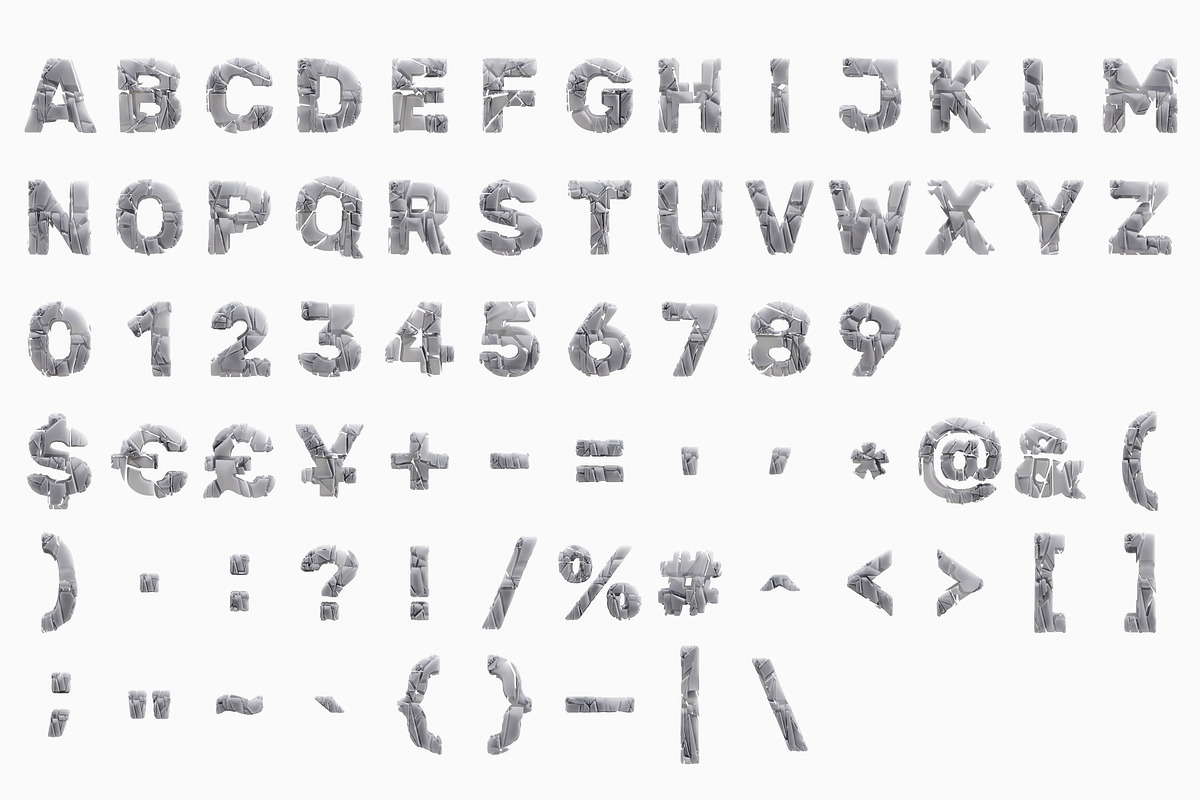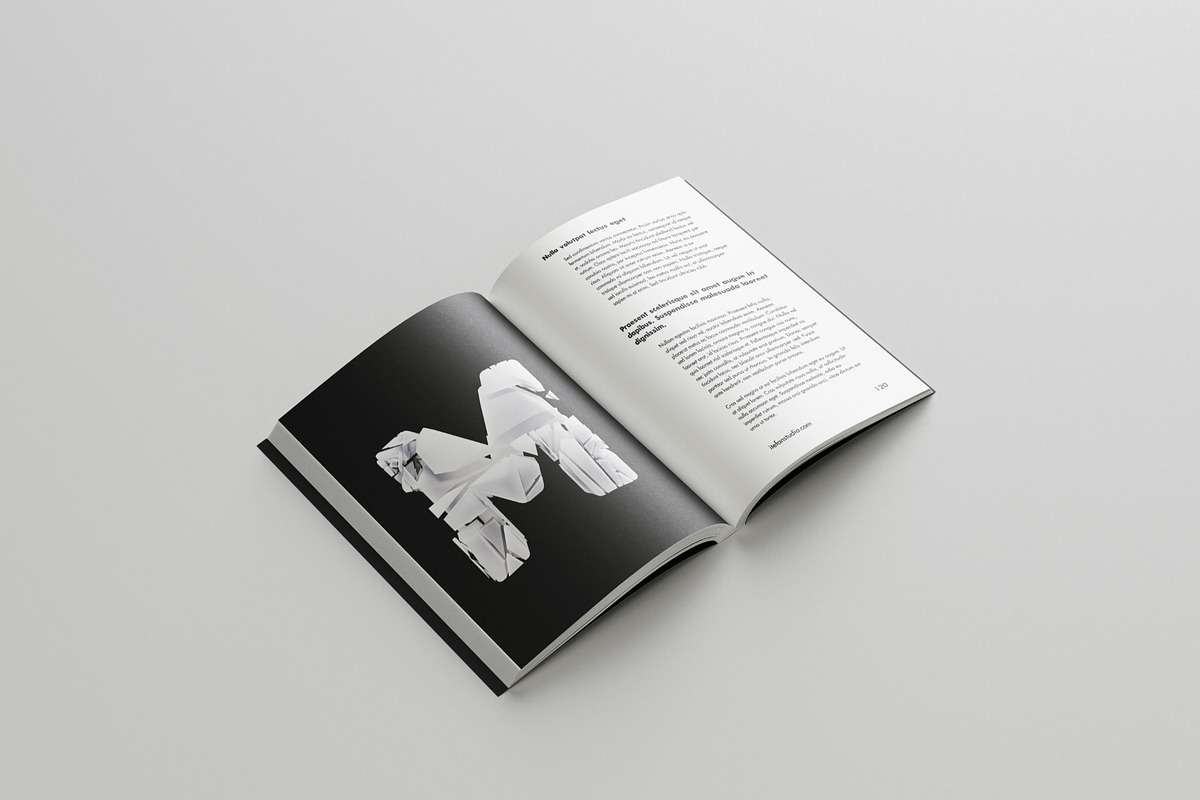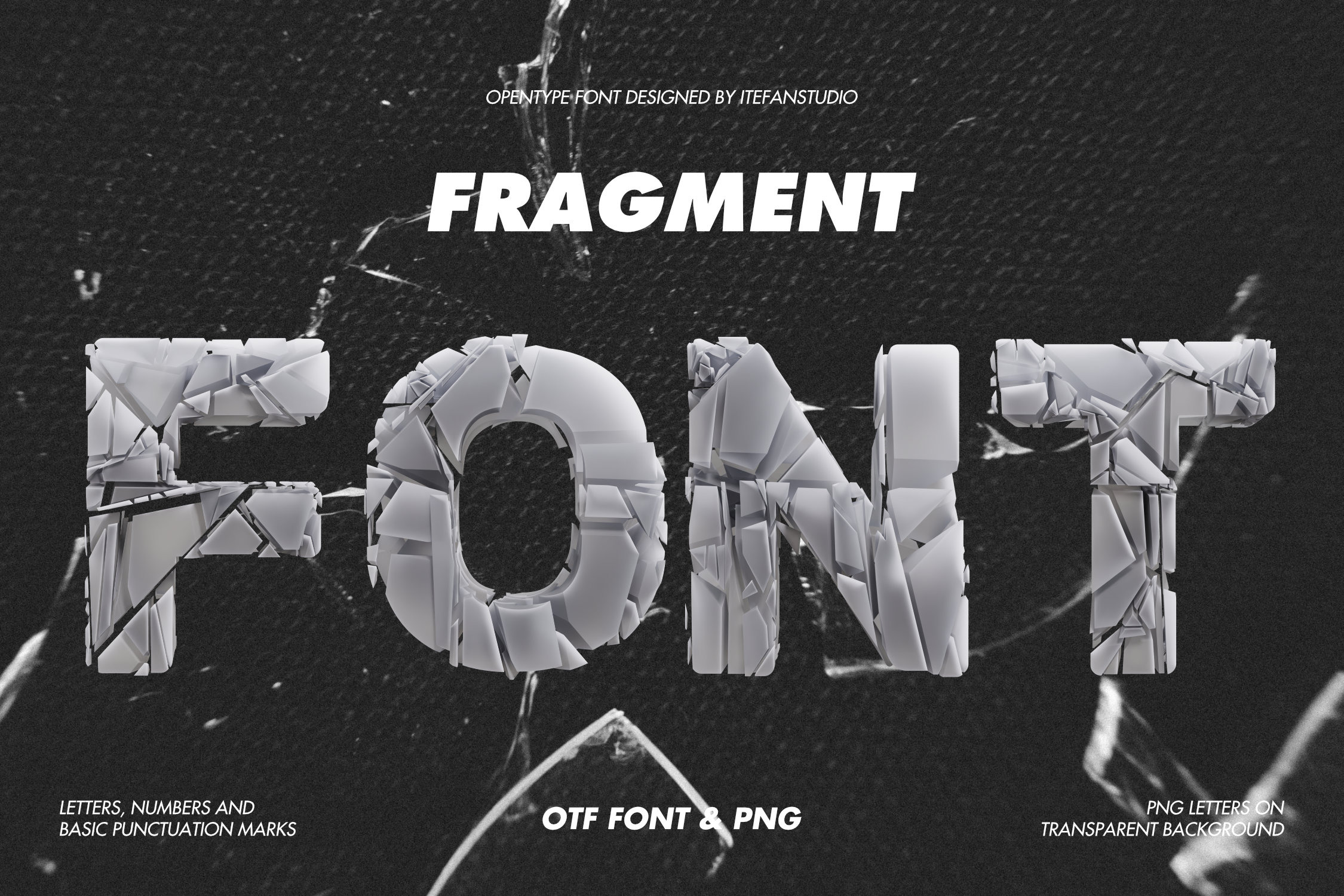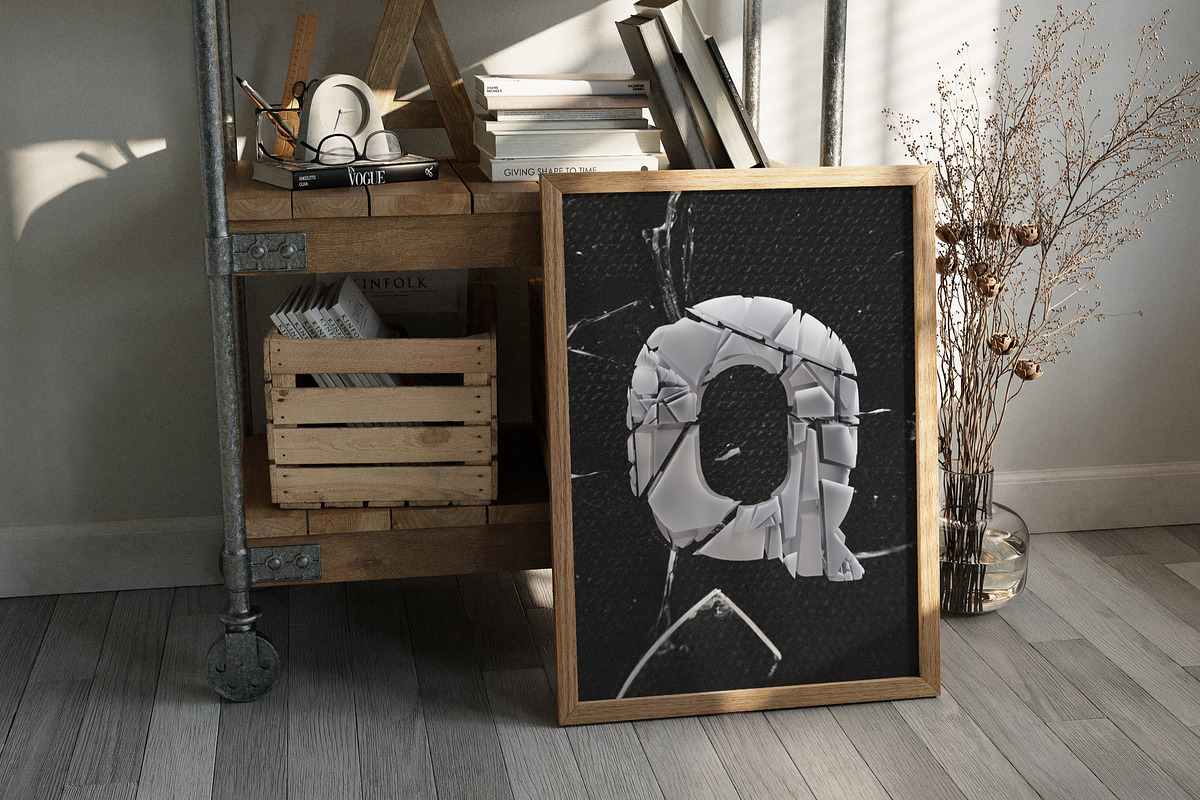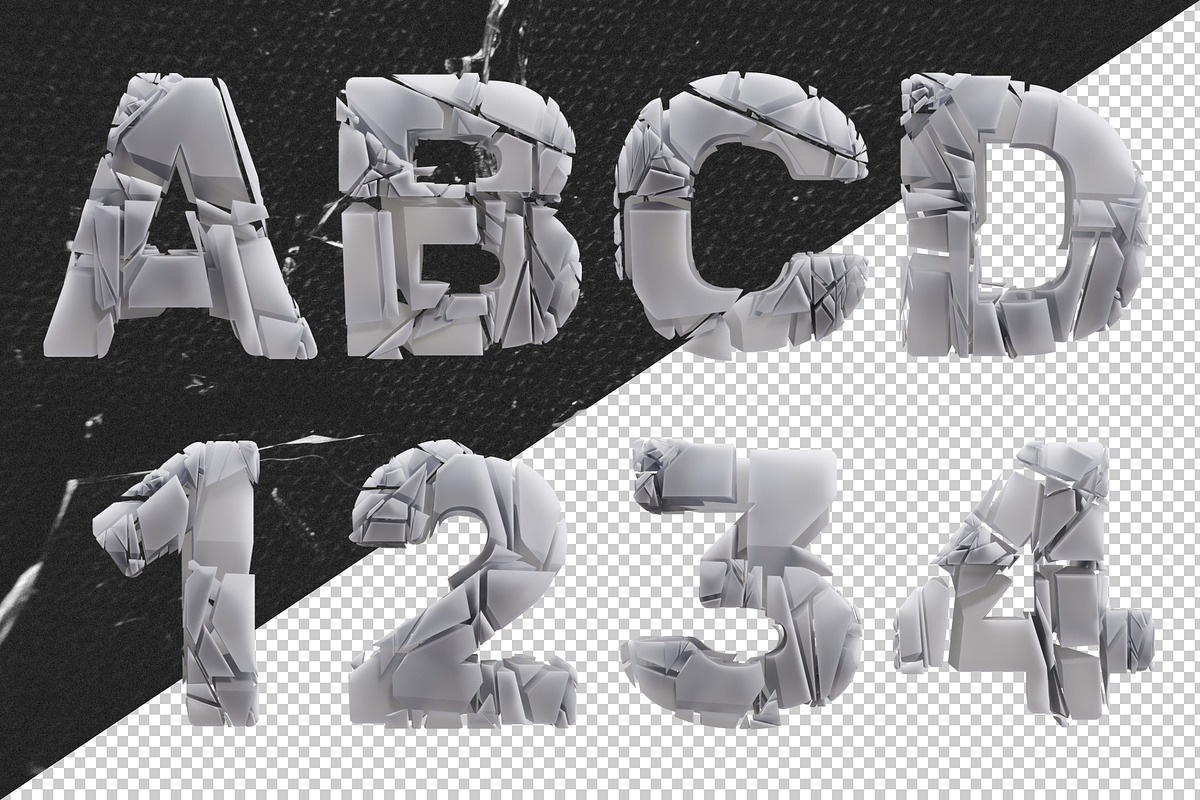
Fragment Font
Designed with sharp geometric planes and soft gray plastic tones, the form features a fragmented, faceted look that adds depth, structure, and a sleek industrial feel. Available in both OTF and PNG formats with transparent backgrounds.
This font is a high-resolution OpenType typeface featuring uppercase letters, numbers, and basic punctuation, with each character approximately 800 pixels tall. A complete preview of all letters and glyphs is provided for reference.